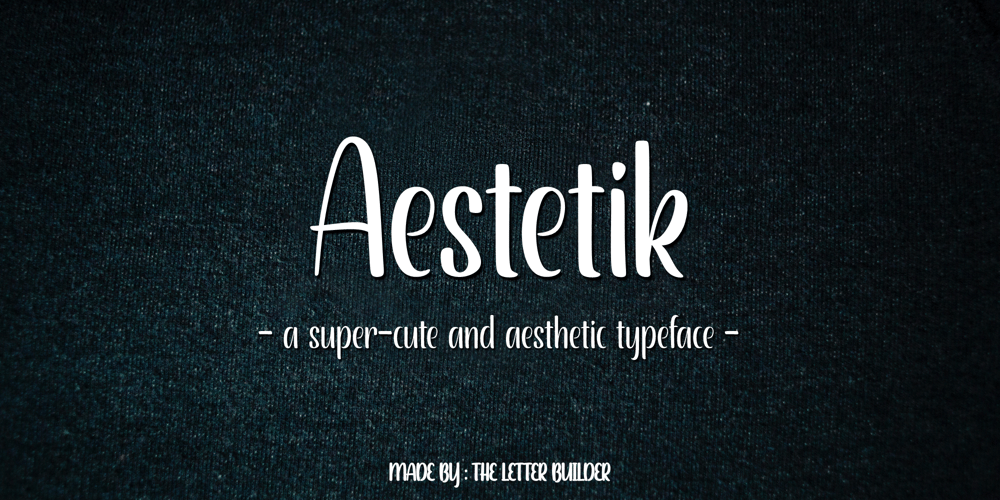
Aestetik
Aestetik font
Aestetik Font Family was designed by Triza Mardihaqq and published by The Letter Builder. Aestetik contains 1 styles and family package options. This font is specially made for use in your various works. We created this font with its own uniqueness, such as the feel of writing with a brushpen, a simple yet elegant style, and beauty of brushpen handwriting. Besides being able to stand alone, you can combine this font with various other typefaces, such as Serif, Sans Serif, and Script. This font is ready for you to use to make your products and services look more unique because of the basic concept of making this font is “unique”.